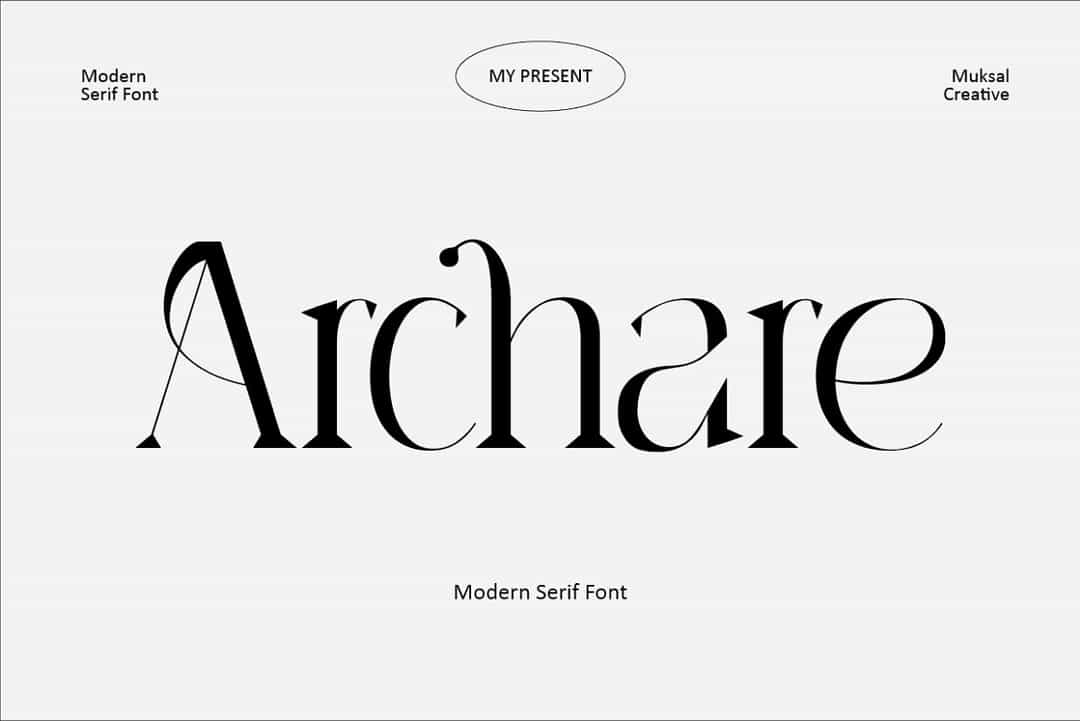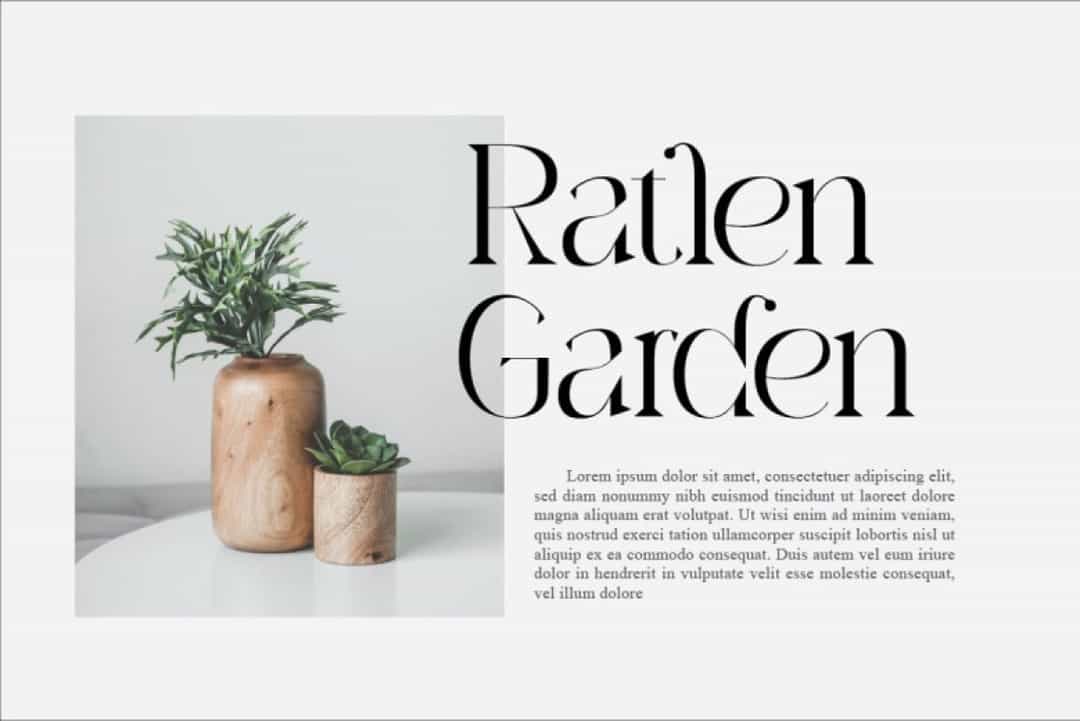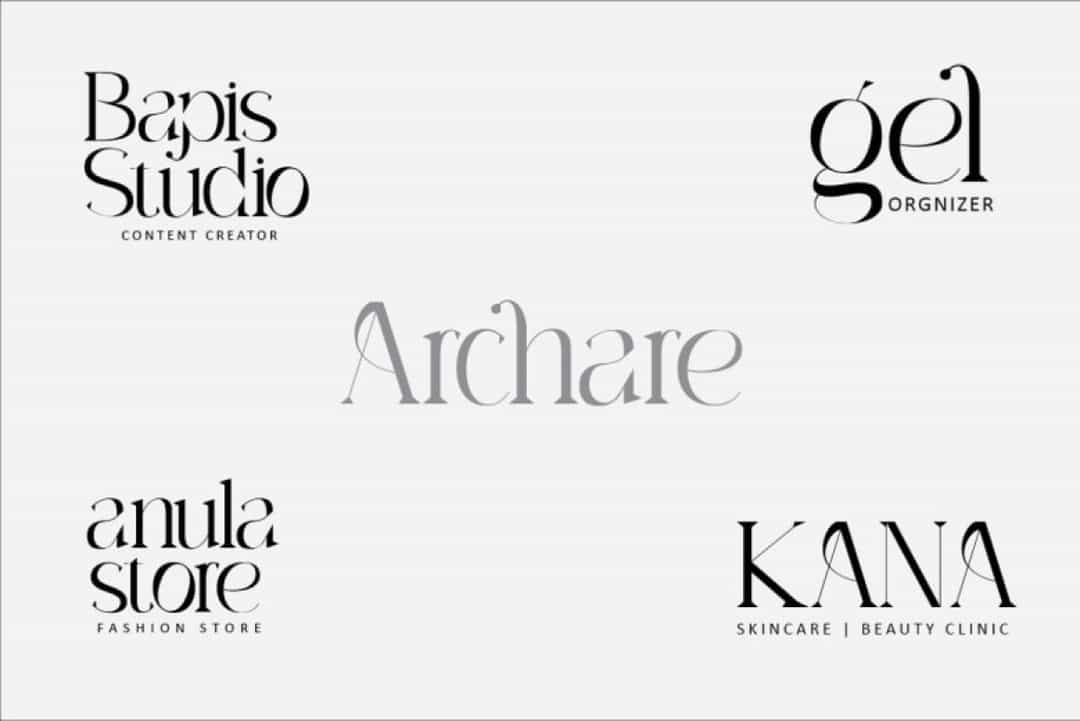
Archare Serif font features exquisite alternates and special glyph ornamentation for multilingual support, making it an amazingly flexible font suitable for use at both small and large sizes. Ideal for logo design, clothing packaging design, magazine headers or just text overlay for any image background, it is incredibly useful as an editorial resource.